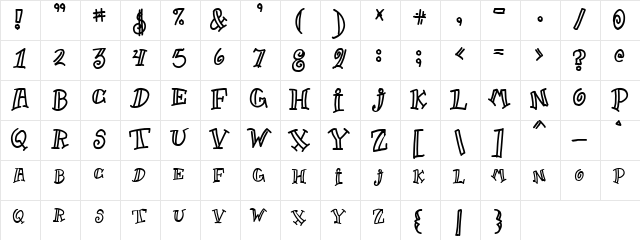
Double Dose Regular
Design Context for Double Dose Typeface
Double Dose is a composed and adaptable typeface that performs quietly and consistently across a wide range of design contexts.